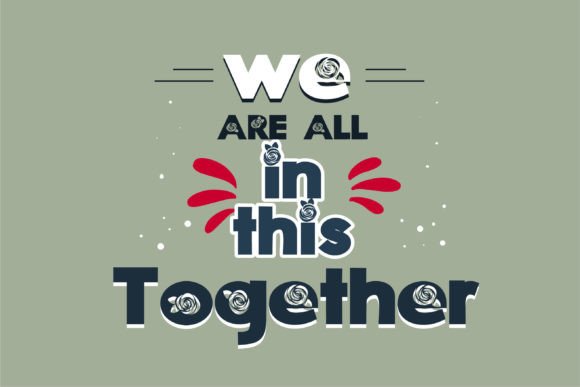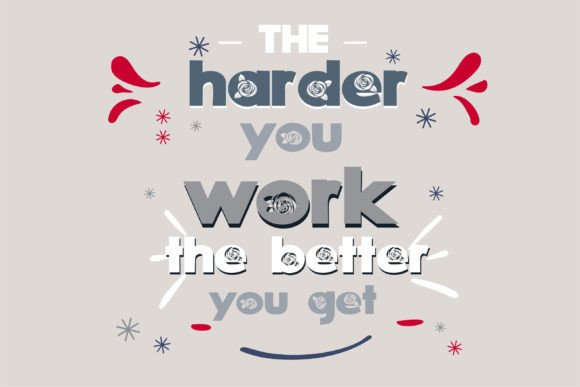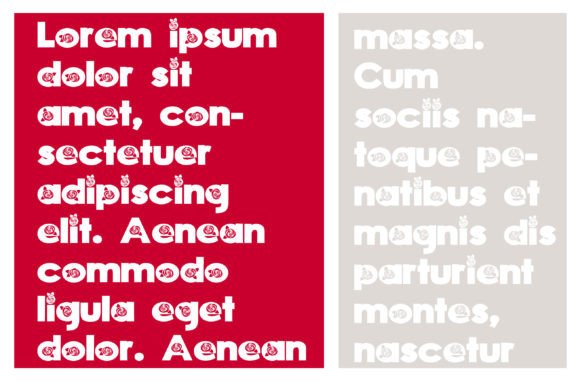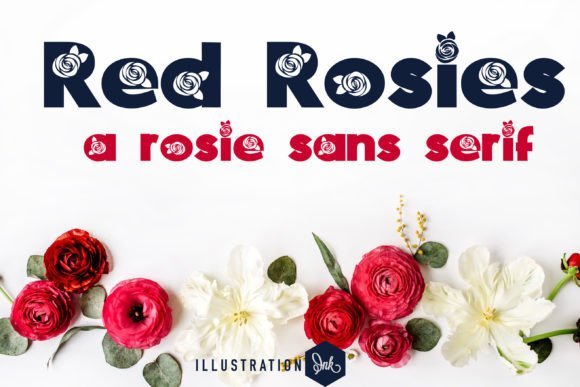
Introduction to Red Rosies Font
Red Rosies is a whimsical sans serif font with rosy silhouettes throughout.
A little bit quirky, this font looks incredibly adept in a wide variety of contexts .